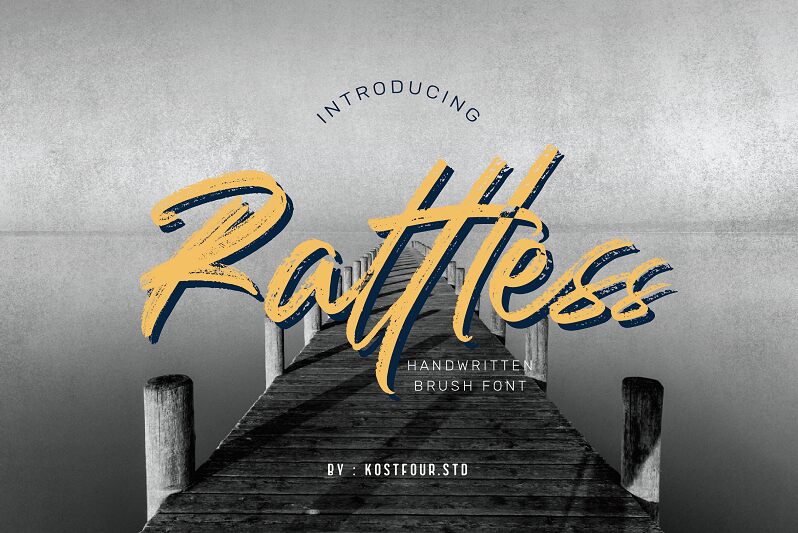
Rattless
Rattless font by Moodtype is a free textured brush font. Built around a gritty dry‑brush grain, it swings forward with a quick slant and pressure shifts that feel hand‑painted—like ink dragged across rough paper. The strokes crackle with energy, giving headlines a raw, lived‑in bite.
Using Rattless, you get instant attitude for band posters, streetwear tags, beverage labels, bold packaging, event flyers, and punchy social posts. The lively rhythm keeps words readable while still looking untamed. For balance, pair this free font with a clean, light sans set small for body copy, letting Rattless handle the loud parts.